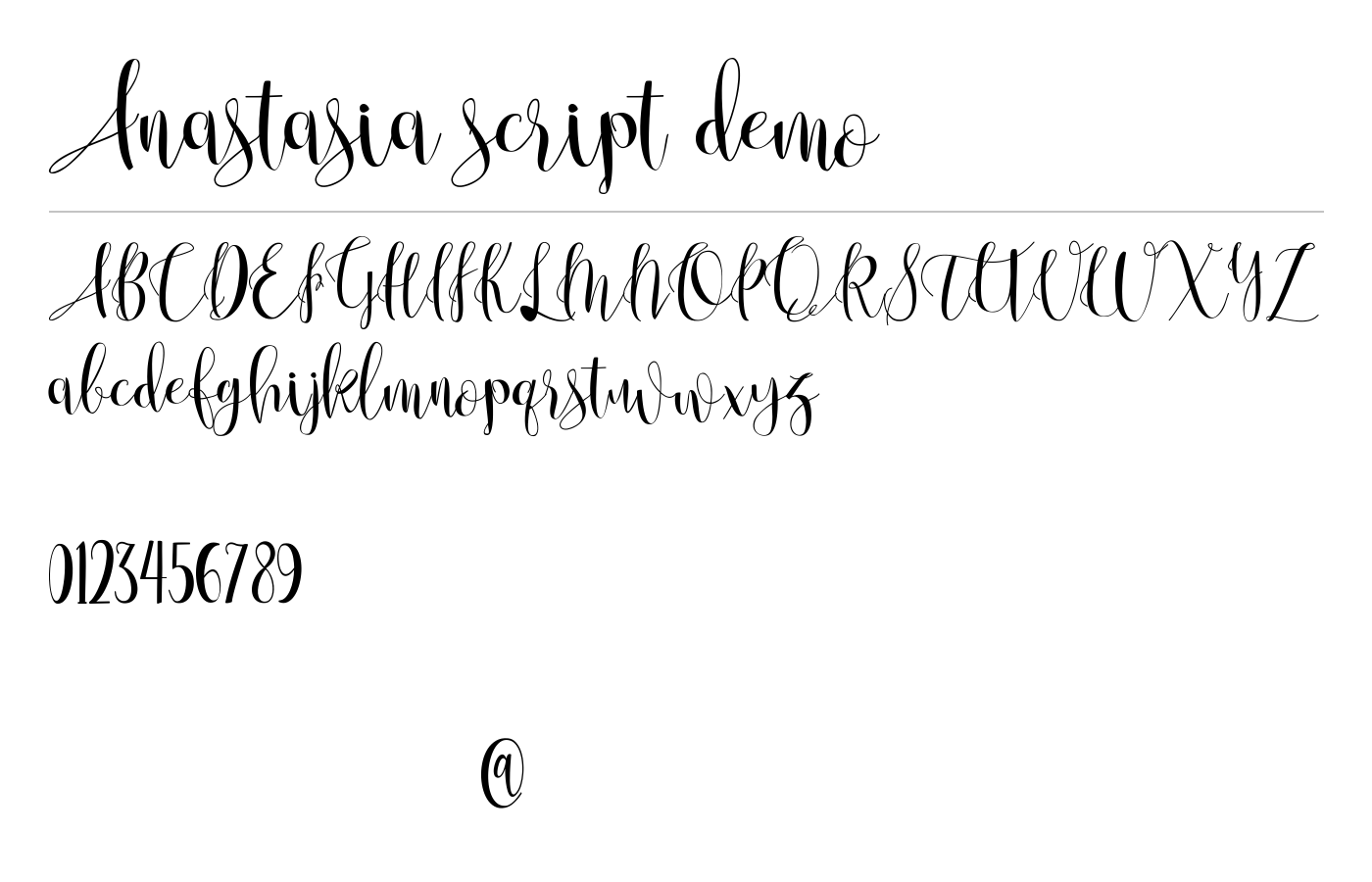
Anastasia Script Demo is a graceful and elegant script font featuring flowing, handwritten letterforms with delicate swashes and stylish loops that evoke a refined, romantic feel. Its tall, slim characters and smooth contrast between thick and thin strokes make it perfect for invitations, branding, and designs that want to convey sophistication and charm. This font works beautifully in logos, wedding stationery, and upscale packaging where a touch of luxury and personality is desired.
Anastasia script demo Font
About Anastasia script demo Font